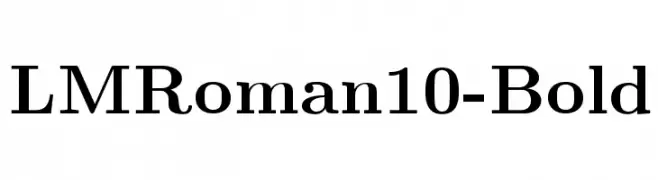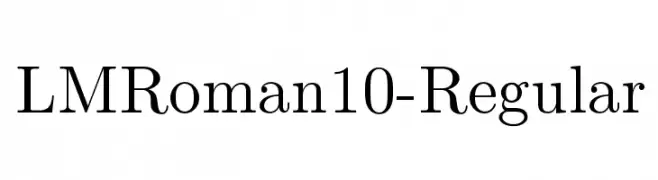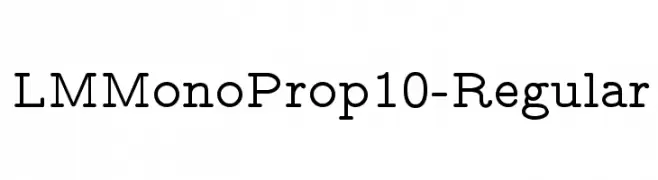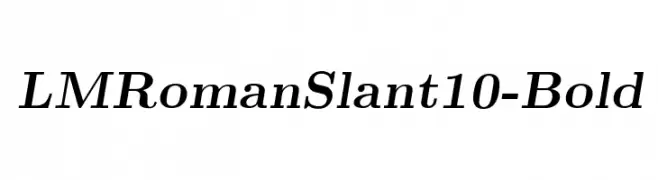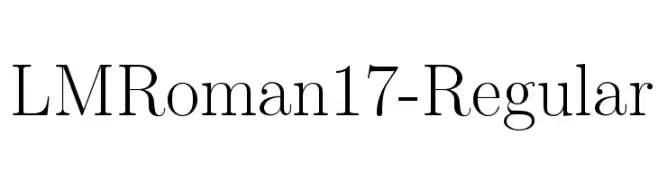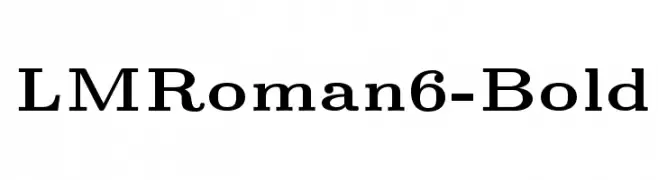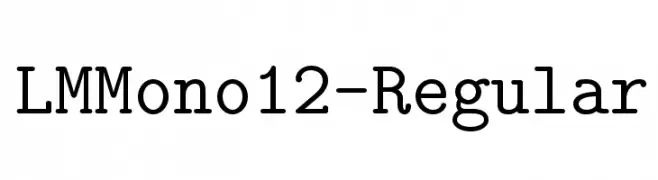
A bold, classic serif font with strong strokes and elegant curves.
A classic serif font with elegant, well-defined strokes and balanced structure.
A bold and oblique modern font with smooth, consistent strokes.
A clean, monospaced font ideal for coding and technical documentation.
A bold, slanted serif font with elegant and dynamic characteristics.
A classic serif font with elegant strokes and refined serifs.
A modern, monospaced font with low contrast and uniform spacing.
A bold, classic serif font with strong strokes and elegant serifs.
A monospaced font with classic typewriter aesthetics and slight serifs.
An elegant serif font with an oblique slant and moderate stroke contrast.